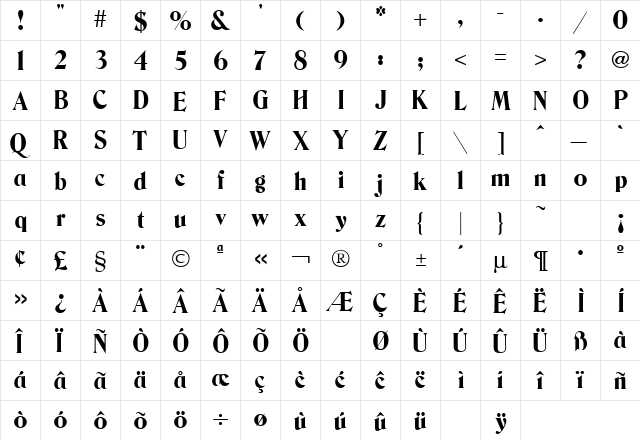
Bernase Roman Regular
Design Context for Bernase Roman Typeface
Bernase Roman offers clean, dependable letterforms without strong stylistic allegiance, making it a practical choice for designers who need flexibility.